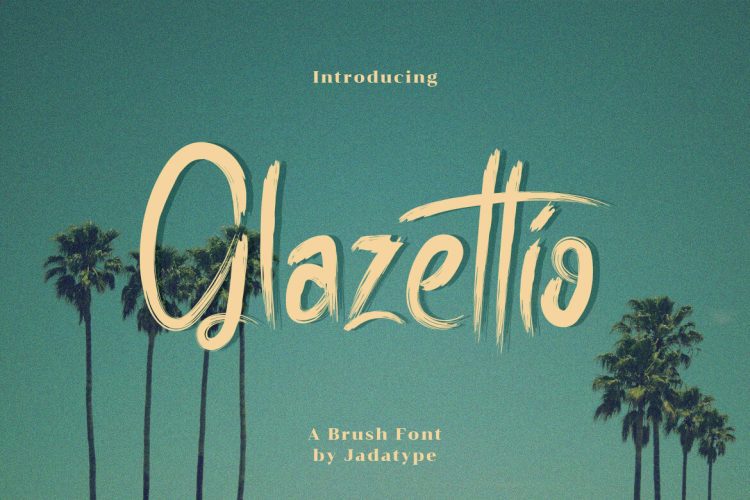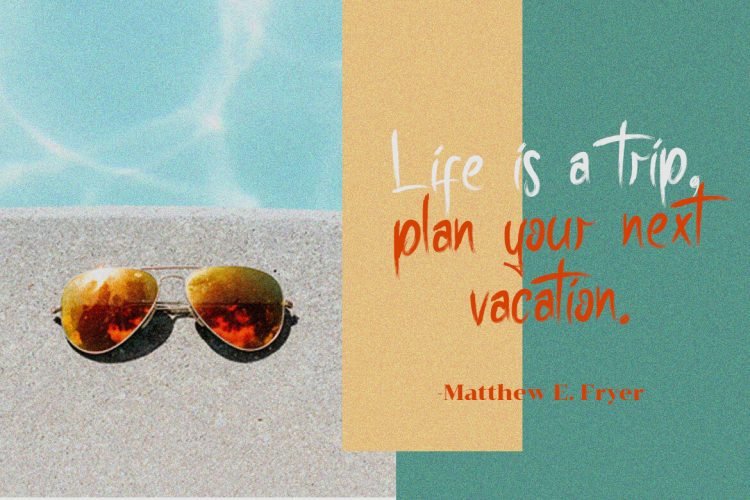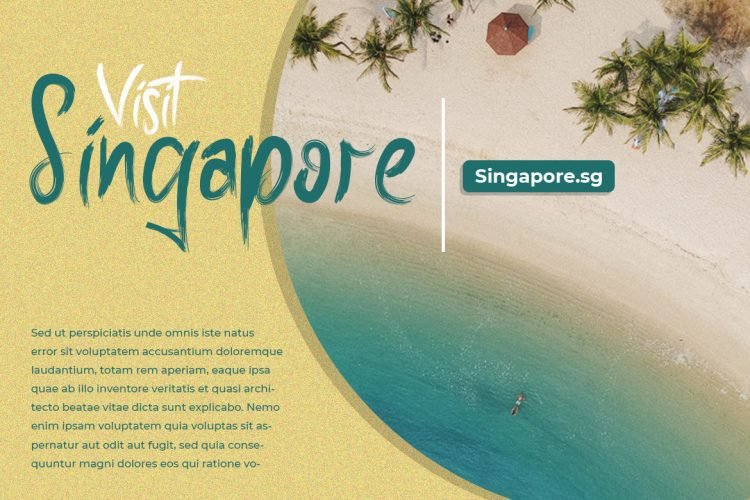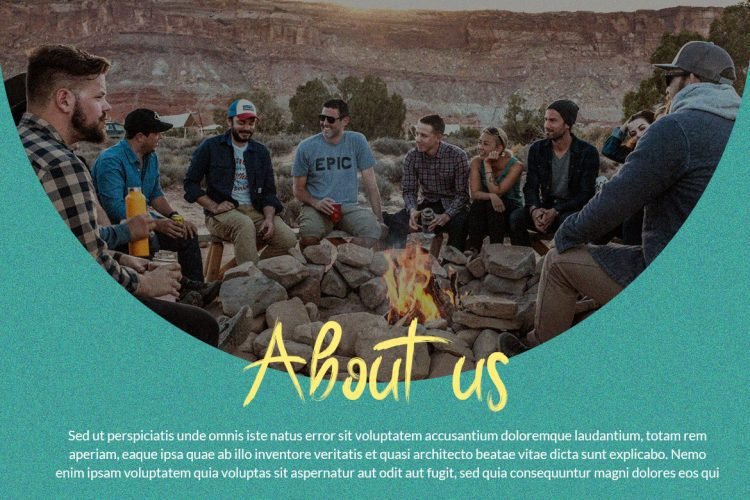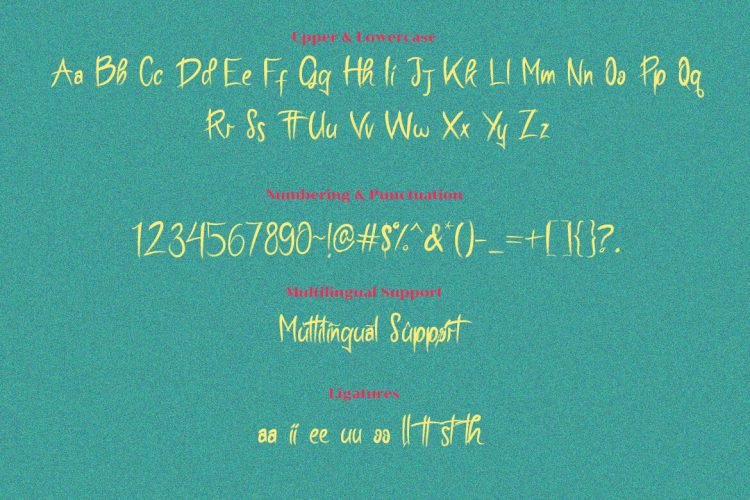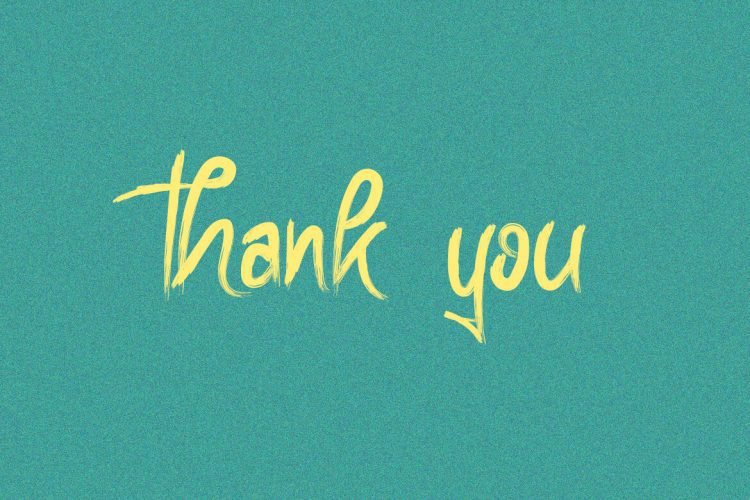
Glazettio is a brush-styled handwritten font. Use this font with your designs and explore its endless possibilities. contains standard English letters, numbers, punctuation, Ligatures and several accents that support multilingualism.